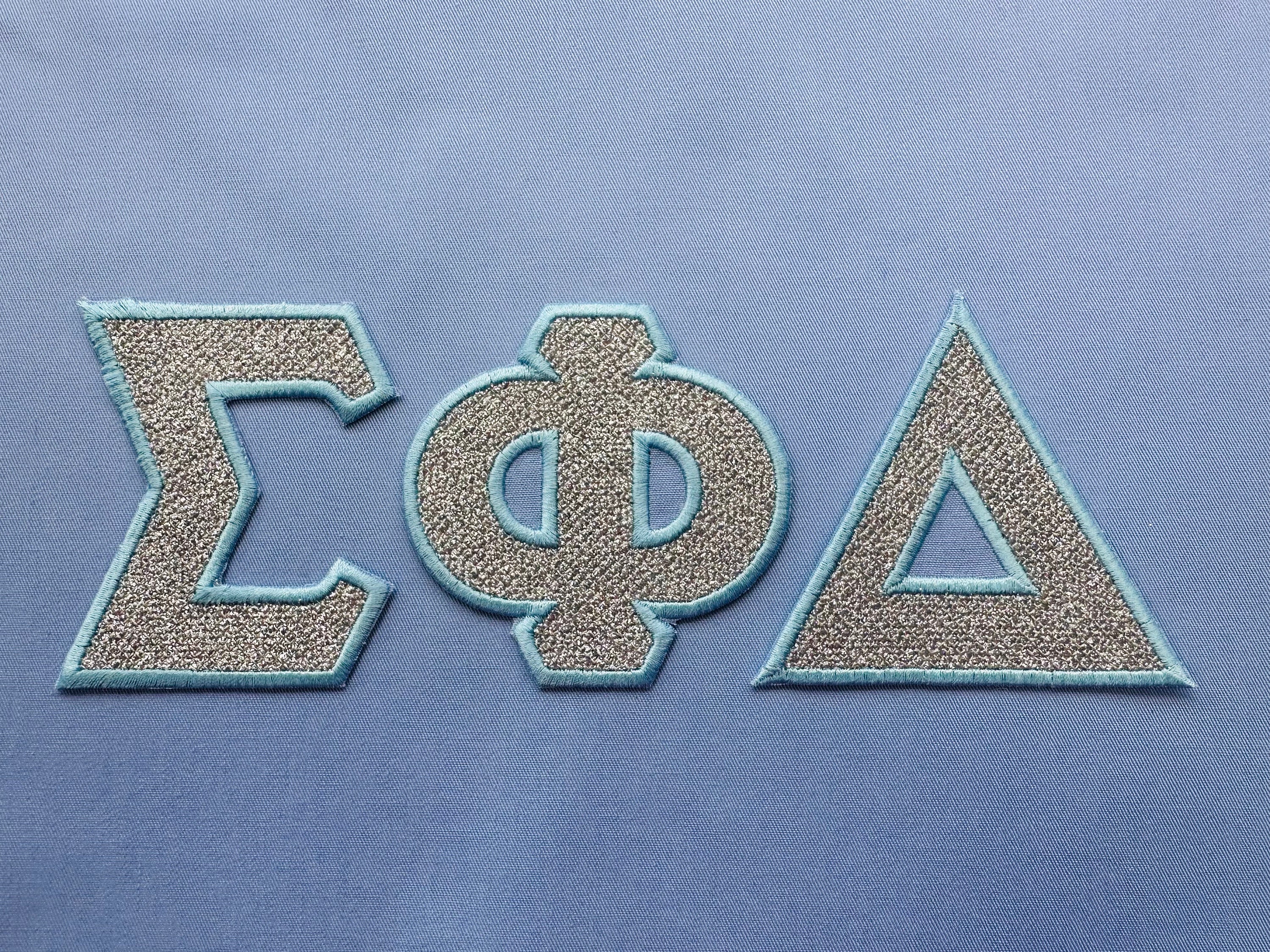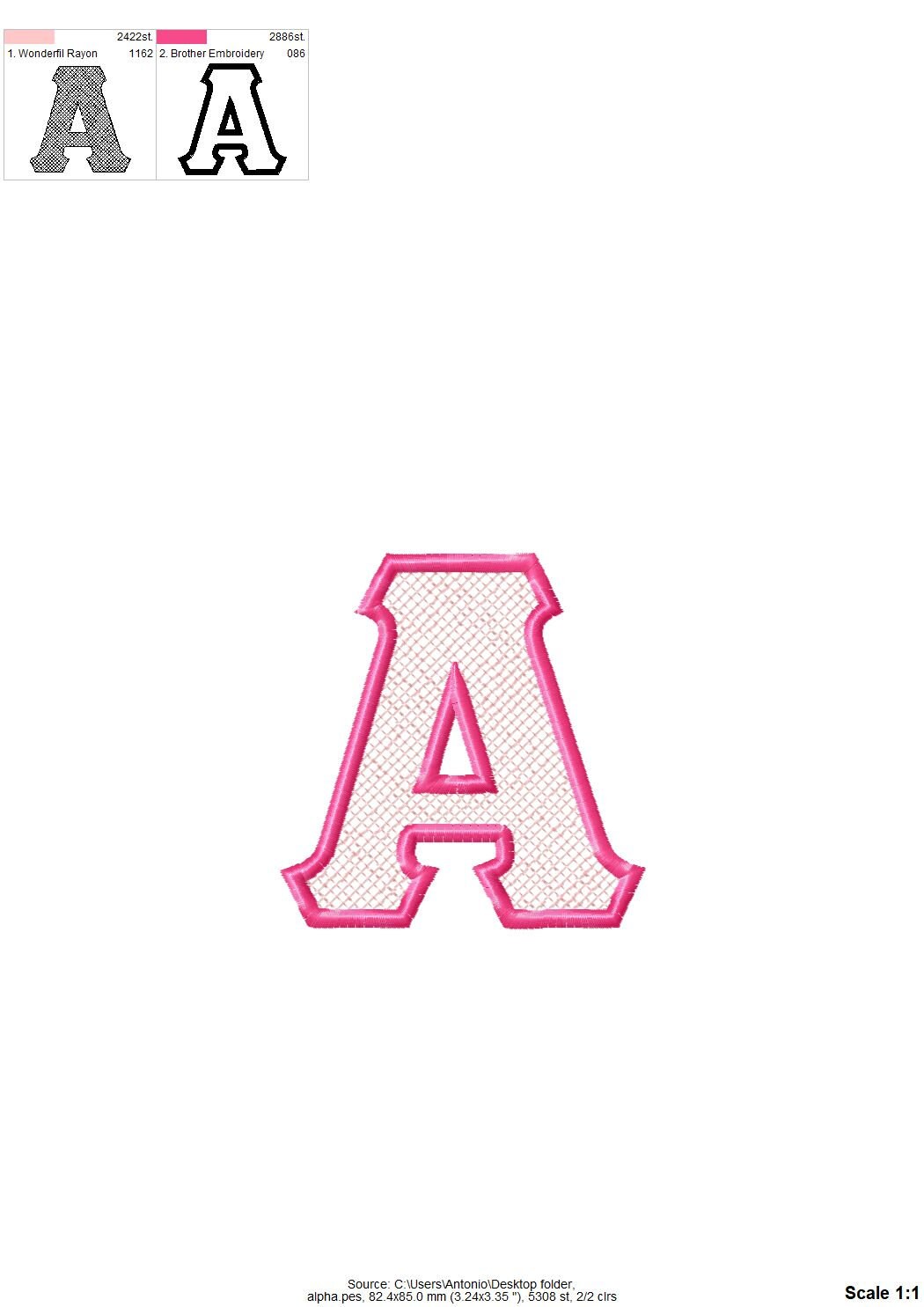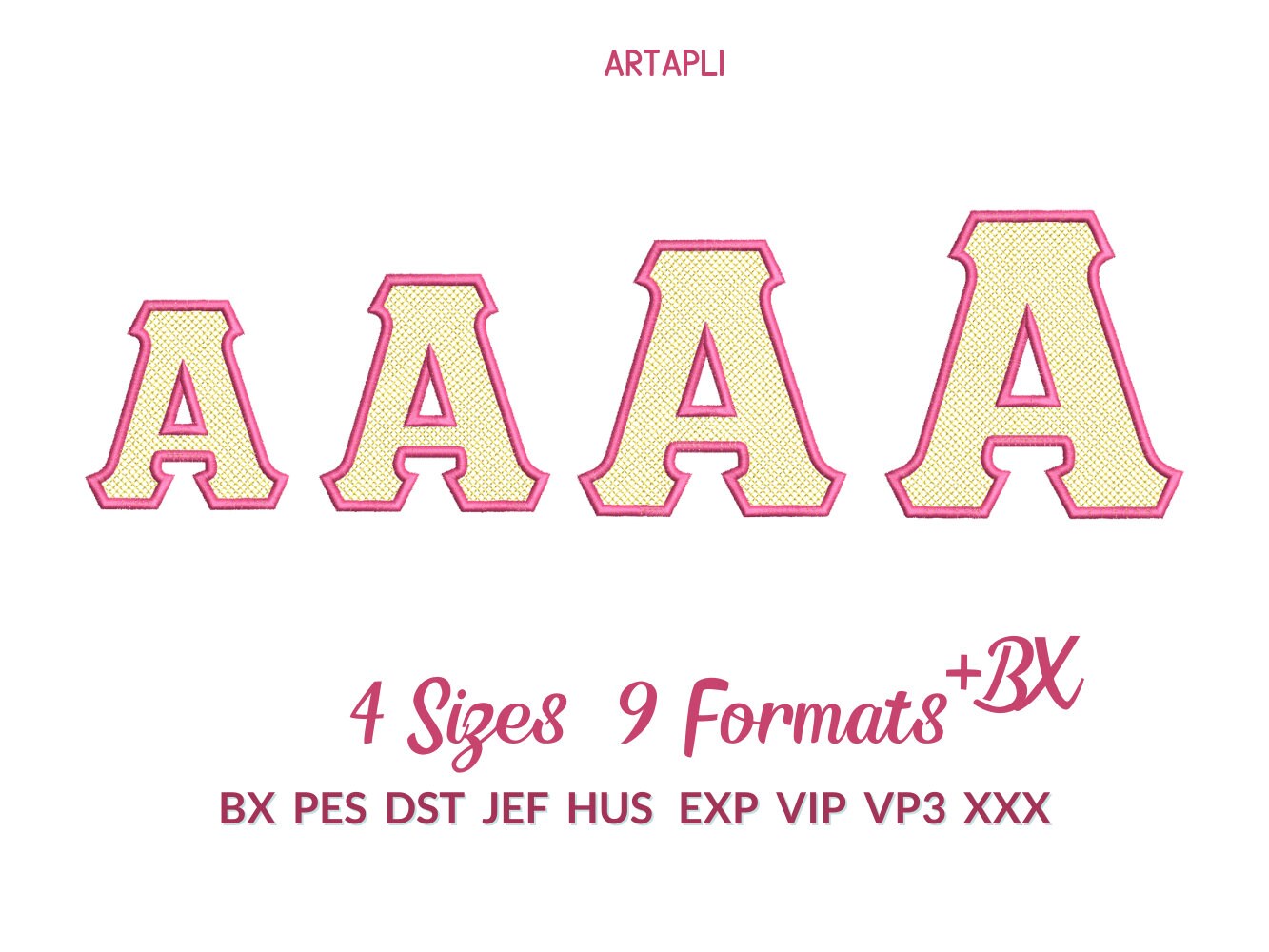
Glitter Greek Font light stitch diamonds and satin stitch outline machine embroidery designs crisscross alphabet block font 3 up to 4.3 inch
Light stitch design, the font is transparent, and the background fabric looks through. Stunning effect!